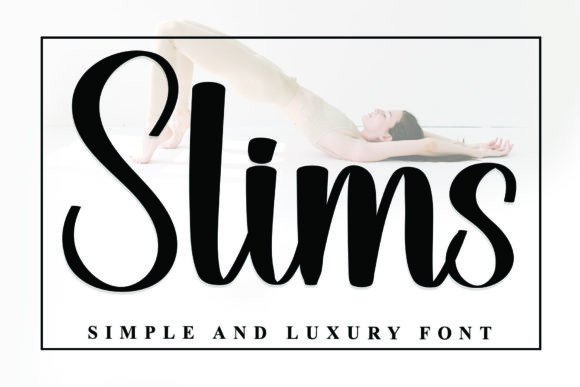
Prepare yourself to be captivated by the Slims Font, a script typeface that oozes enchantment and elegance. Designed by the talented FreshTypeINK, Slims boasts a captivating handwritten style, perfect for adding a touch of romance and allure to your creative projects.
Immerse yourself in the beauty of Slims' flowing lines and delicate curves, which dance across the page like a gentle whisper. Whether you're crafting heartfelt greeting cards, designing eye-catching headlines, or adding a personal touch to your branding, this font is guaranteed to elevate your designs to new heights.
Harness the power of Slims' versatility and explore its boundless applications. From the warmth of personal letters to the boldness of advertising campaigns, this font adapts seamlessly to your diverse needs, ensuring a consistent thread of sophistication throughout your creative endeavors.
With Slims as your ally, you'll discover a world of creative possibilities. Transport your readers to a bygone era with the charm of handwritten notes, or make a bold statement with headlines that exude confidence and flair. The possibilities are endless, and the only limit is your imagination.